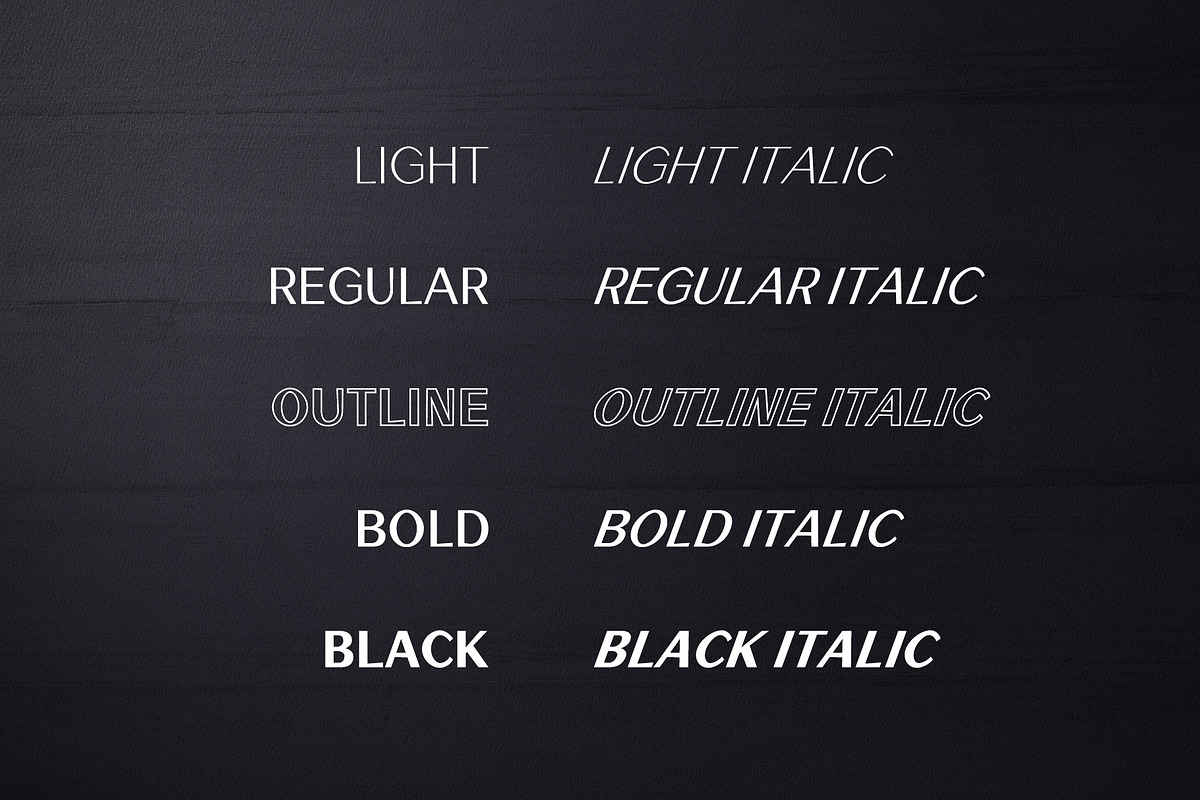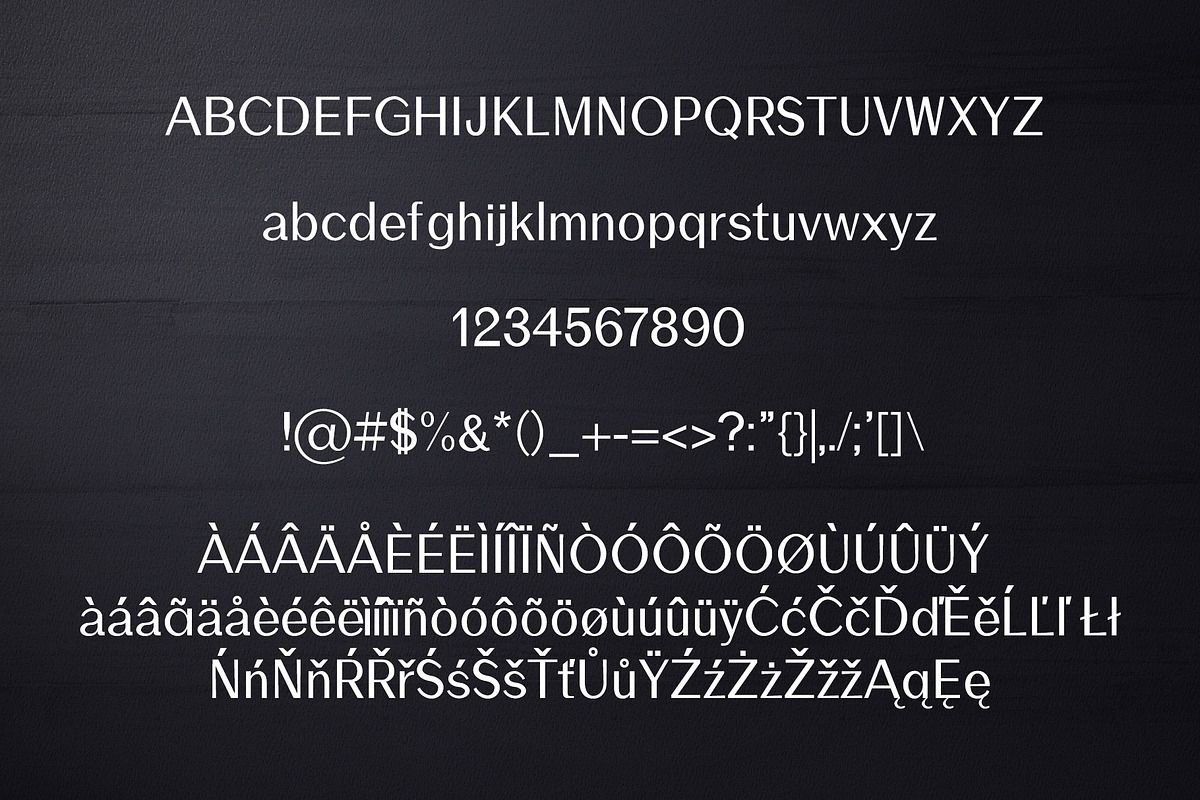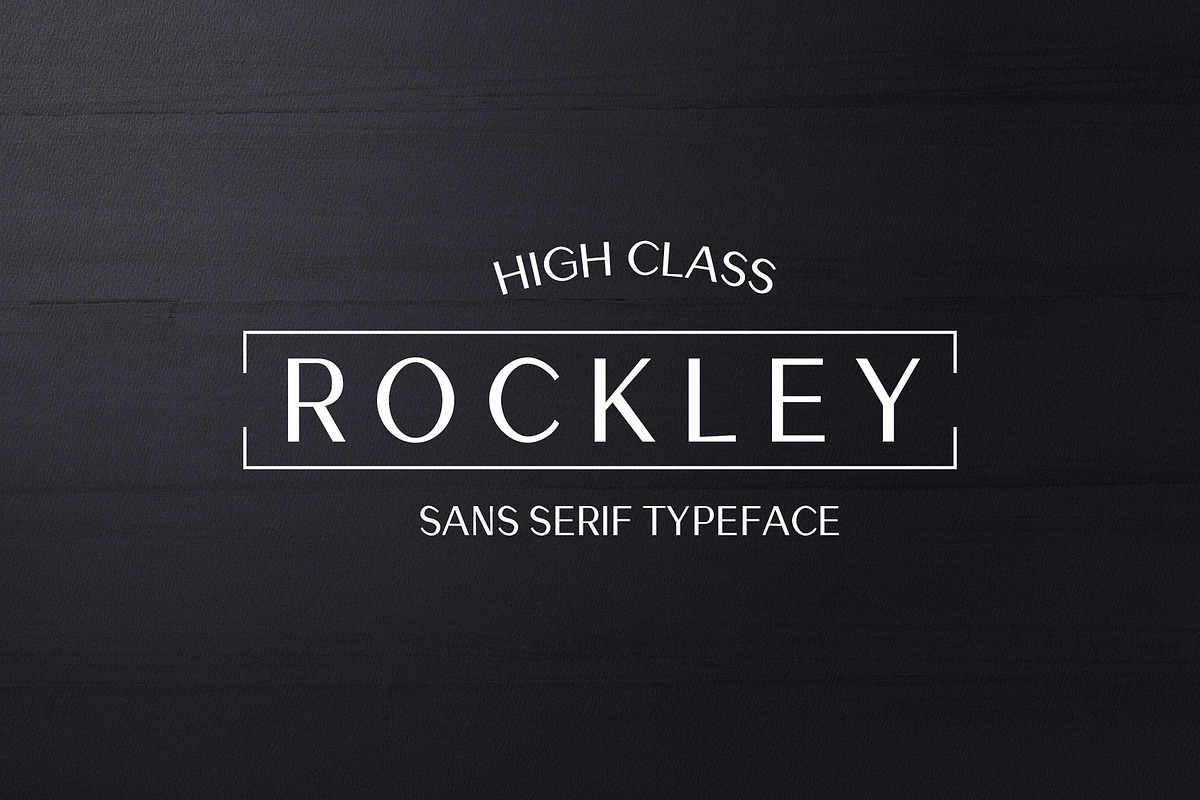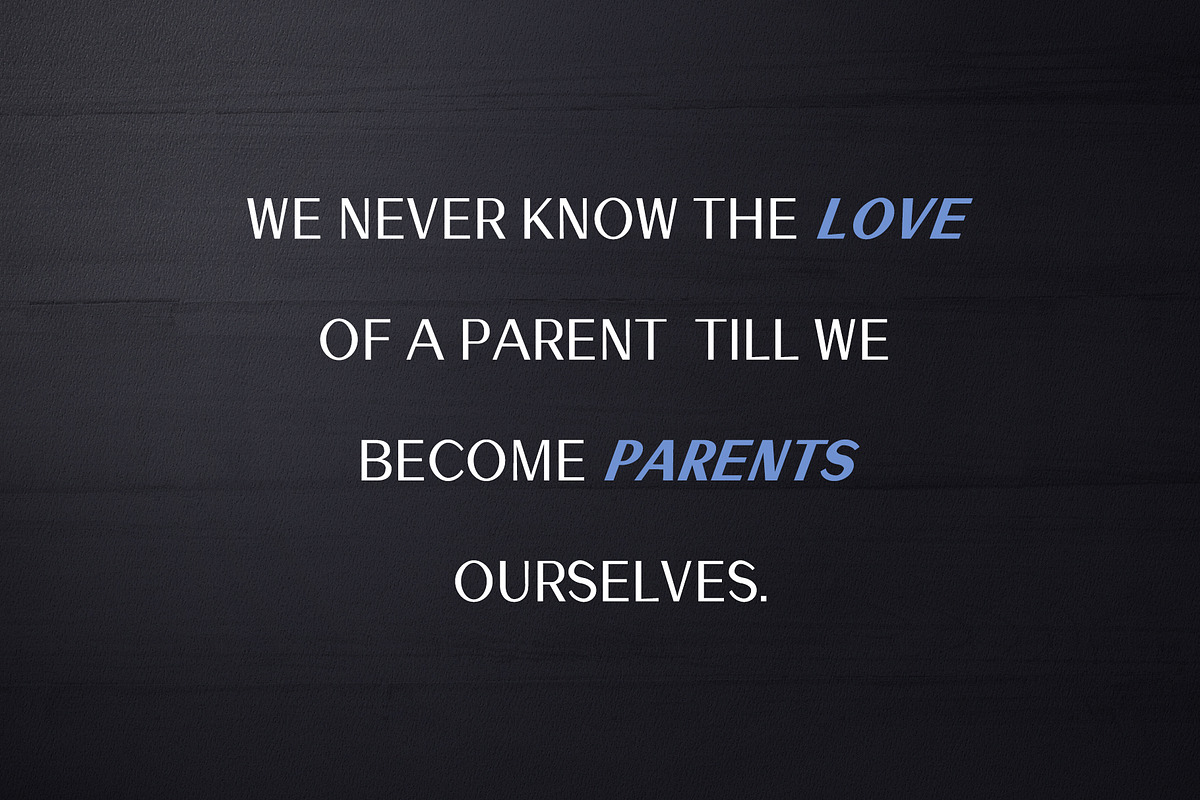
Rockley Sans Serif 10 Font Family
Rockley Sans Serif 10 Font Family by Creativetacos is a font selected for branding, posters, packaging, typography.
- Rockley Sans Serif Font Family is a set contains 10 weights.
- Includes 5 weights The perfect choice for Modern, Fashion & Magazine Titles.
- Updates: Added Italic Weight
- Regular, Light, Italic, Outline, Bold and Black Weights
- Rockley Light
- Rockley Light Italic
- Rockley Regular
- Rockley Italic
- Rockley Regular Italic
- Rockley Bold
- Rockley Bold Italic
- Rockley Black
- Rockley Black Italic
- Rockley Outline
Why Rockley Sans Serif 10 Font Family is worth a look
Rockley Sans Serif 10 Font Family by Creativetacos fits naturally into Branding, posters, packaging, typography.